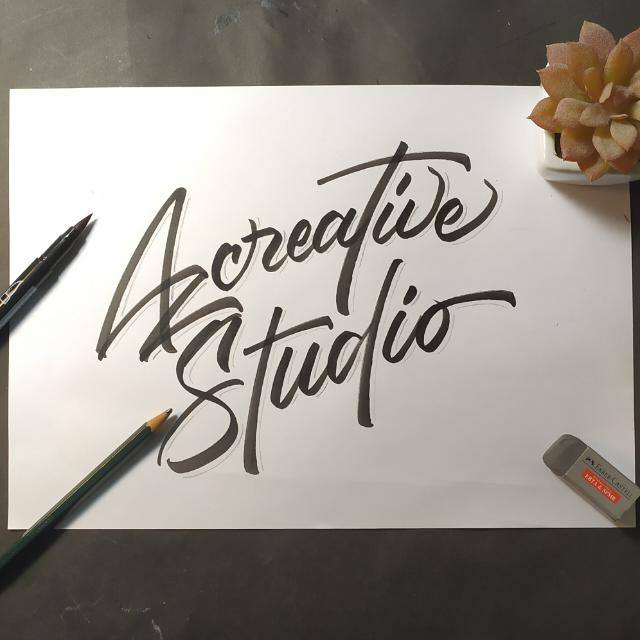
Rusty Frozee Font
Rusty Frozee Script Font
This Font simplifies elegance into one truly outstanding handwritten font. Whether it’s for web, print, moving images or anything else – Rusty Frozee will look spectacular.